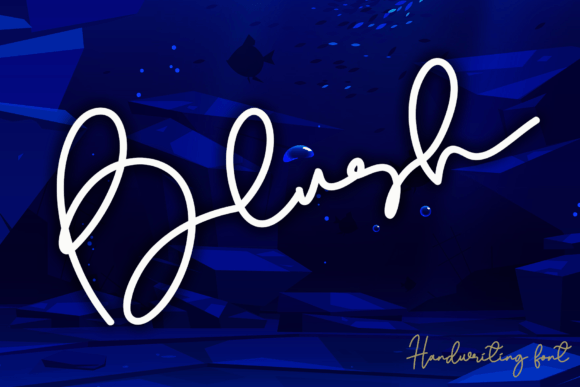
Blush Font by Black line is the perfect choice for those looking for a stylish and elegant signature script font. With its unique and eye-catching design, Blush is sure to make your projects stand out. Whether you're looking for the best font for signature emails, product packaging, branding projects, magazines, social media posts, or wedding invitations, Blush is a versatile and sophisticated option that won't disappoint.
As soon as you lay your eyes on Blush, you will be captivated by its effortless beauty. The script font is designed with a delicate touch, making it perfect for adding a touch of elegance to your projects. Blush has a timeless quality that can enhance any design, whether you're working on a vintage-inspired piece or a modern minimalist project.
One of the most impressive aspects of Blush is its versatility. Whether you're creating a logo or a social media post, this script font can add a touch of sophistication to your work. It is particularly ideal for those looking for the best font for signature emails, as it can lend a touch of personal flair to your communications.
Another reason why Blush is such an excellent choice is its legibility. Despite its intricate design, the font is easy to read, making it ideal for a variety of applications. The font family, which is script, adds a touch of personality and warmth that is hard to replicate with other types of fonts.
Blush is not only beautiful and versatile, but it is also created by Black line, a company known for its excellent craftsmanship and attention to detail. This means that you can trust that Blush is made with care and precision, ensuring that your projects look as good as possible.
Overall, if you're looking for a script font that is both elegant and versatile, Blush is the perfect choice. Its timeless design and legibility make it an ideal option for a variety of applications, and its unique beauty is sure to captivate anyone who sees it.